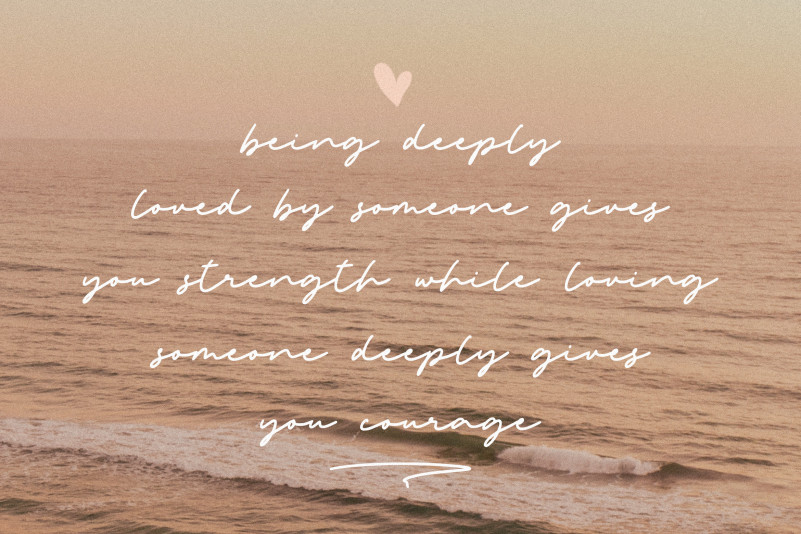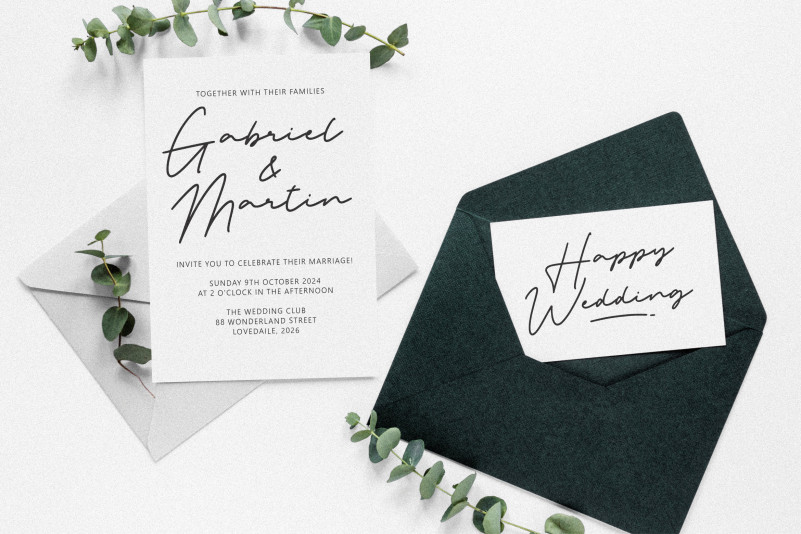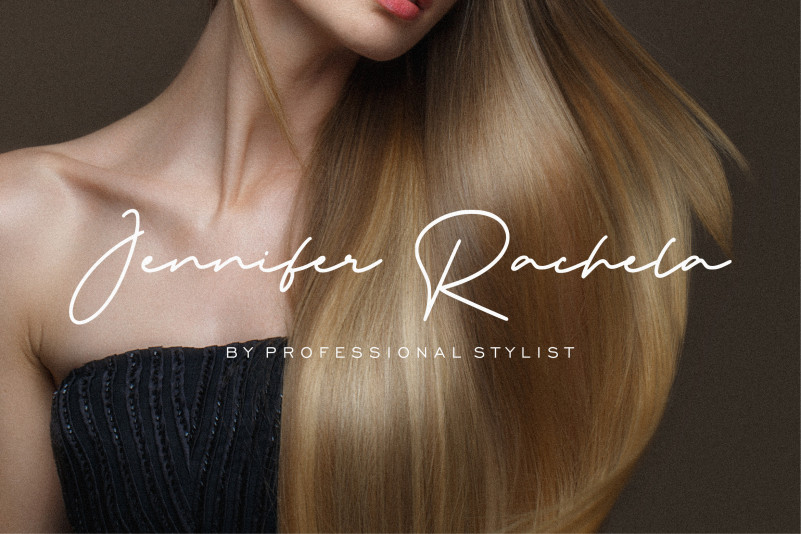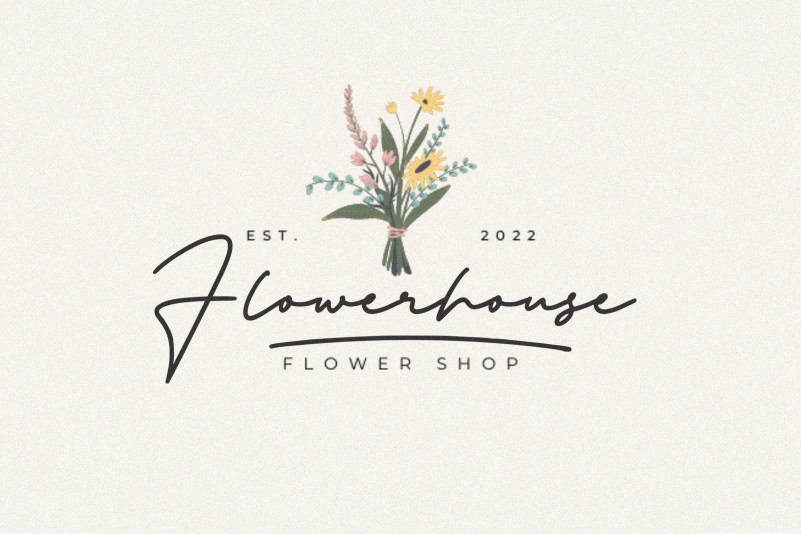
Handgoals Handwritten Font is a Signature Handwritten Font. Handgoals is perfect for product packaging, branding project, megazine, social media, wedding, or just used to express words above the background.